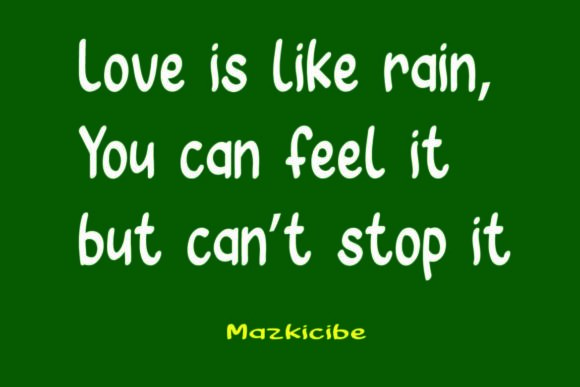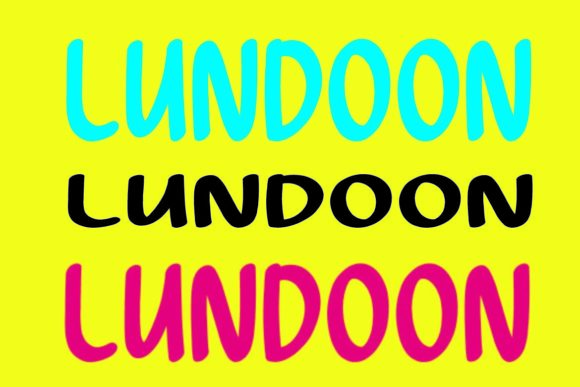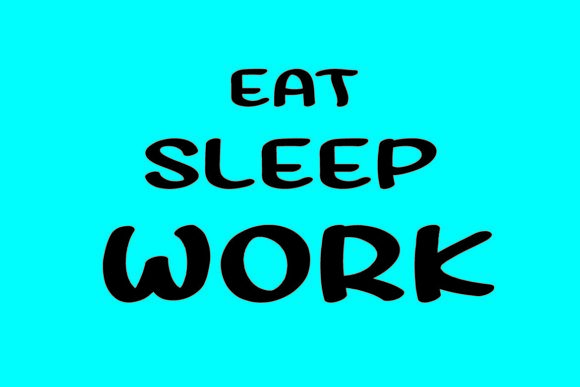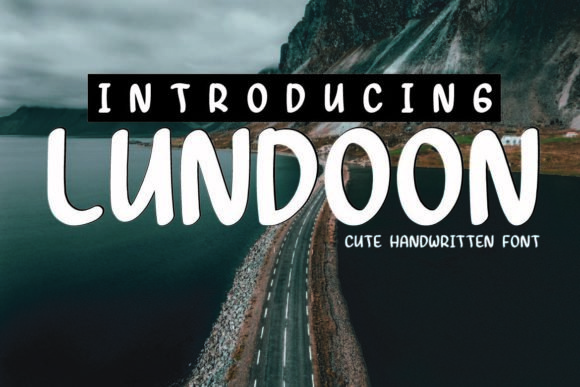
Introduction to Lundoon Font
Lundoon is a cute, clean and paint brushed handwritten font.
Whether you use it for cartoon related designs, children games or just any creation that requires a lovely touch, this font will be an amazing choice .